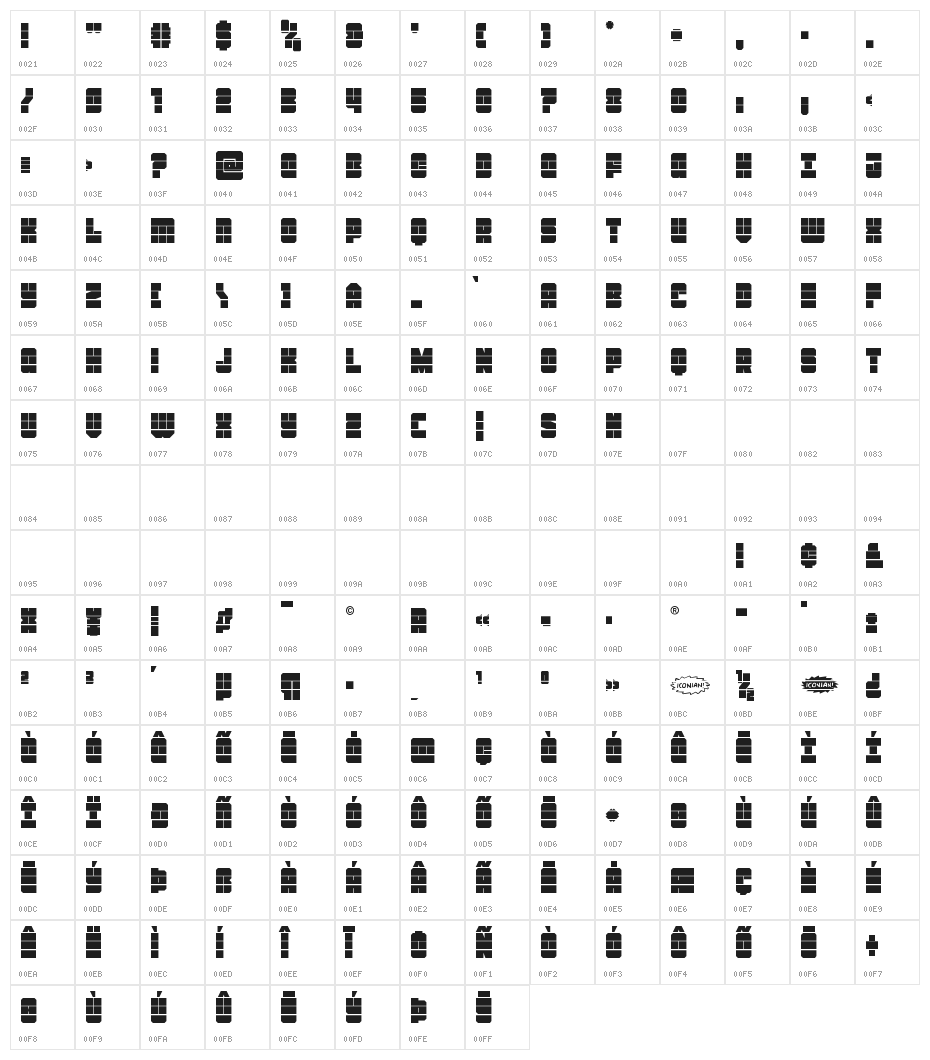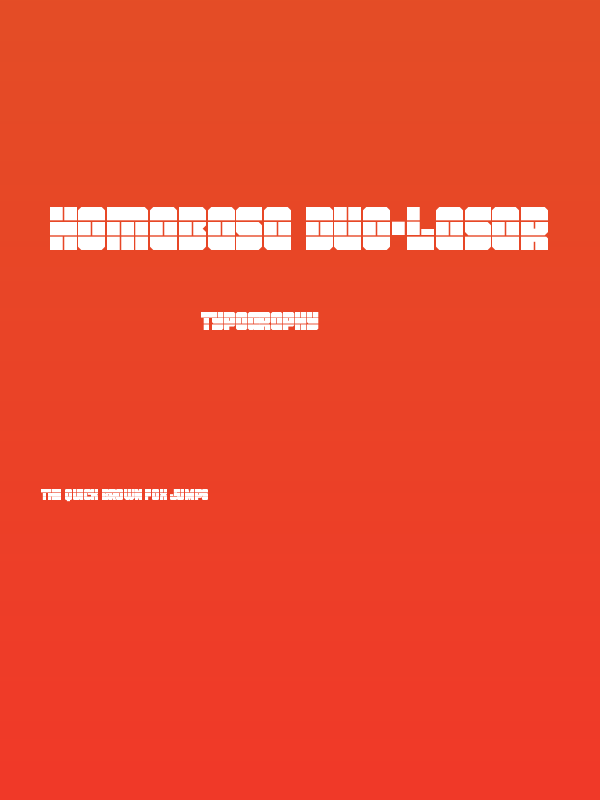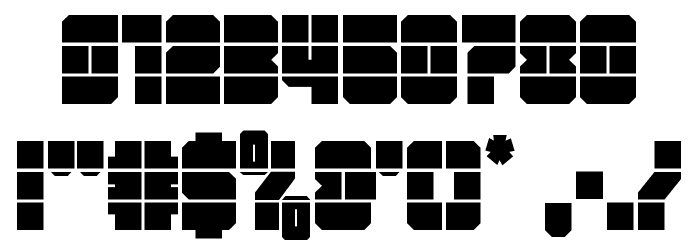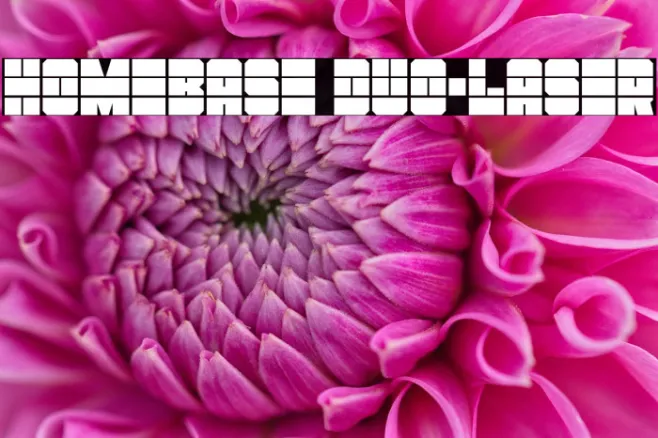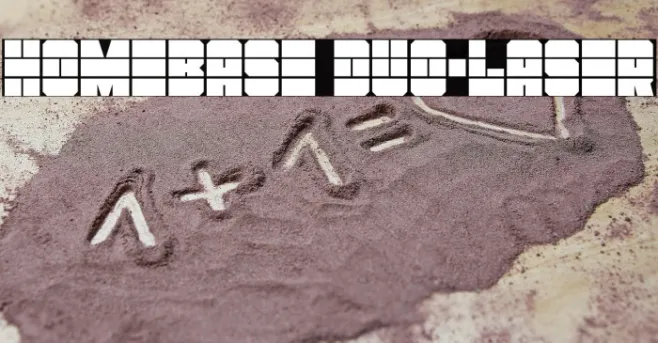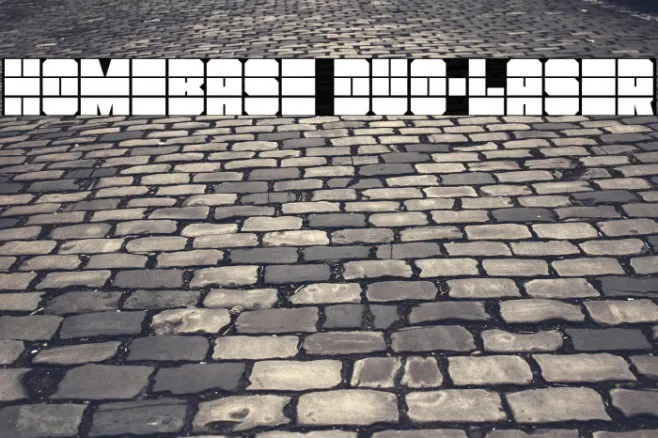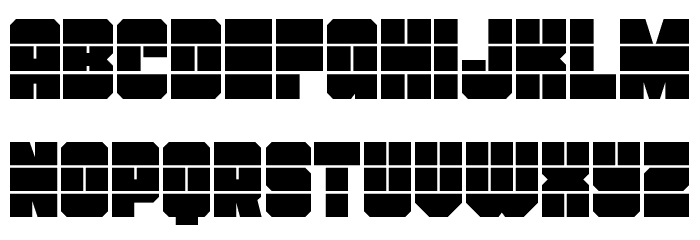
Homebase Duo-Laser Font
Homebase Duo-Laser Description
This font features a bold, geometric design with a blocky and modular appearance. Each character is constructed from solid, rectangular shapes that create a striking, futuristic look. The uniformity and symmetry in the design give it a digital or technological feel, reminiscent of early computer graphics or pixel art. The characters are all uppercase, with a consistent height and width, contributing to a monospaced effect. The font's heavy weight and solid fills make it highly visible and impactful, ideal for attention-grabbing headlines or titles. The spacing between characters is tight, enhancing the compact and cohesive appearance of the text.